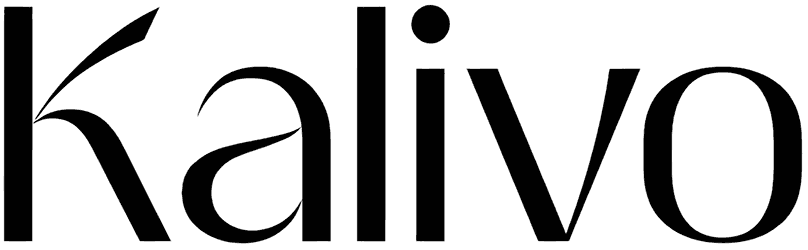
Kalivo Font
Kalivo is a clean, modern, and sturdy sans serif font that conveys a vibe of futuristic, comfortability, or approachability to the audience’s minds.